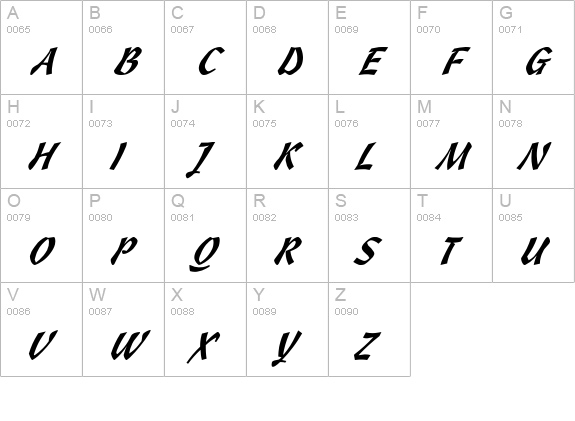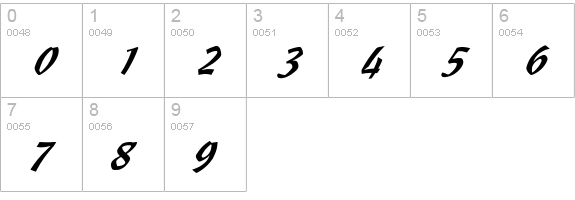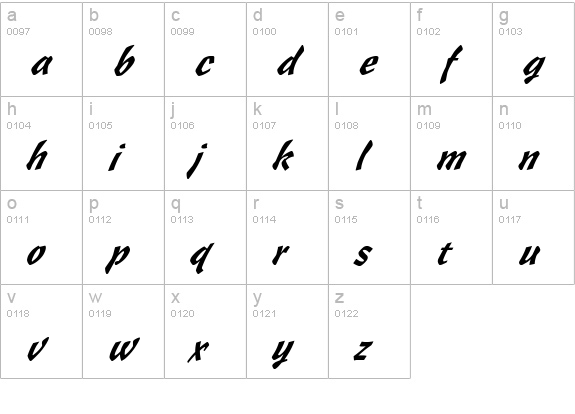
Wizzard Italic is a distinctive, italic variant in the Wizzard typeface family \xE2\x80\x94 well suited to design and typography projects.
Introducing Wizzard Italic, a font that effortlessly combines elegance and playfulness. With its sleek and slanted design, Wizzard Italic is perfect for adding a touch of sophistication to any creative project. Whether you're designing a logo, crafting a unique website, or creating eye-catching marketing materials, this font is sure to make a lasting impression. What sets Wizzard Italic apart is not only its captivating aesthetics but also its accessibility. This incredible font is freely available to download at FontsMarket.com, making it easily accessible to designers, artists, and enthusiasts alike. No need to worry about breaking the bank or compromising on quality – Wizzard Italic offers both style and affordability. Once you start using Wizzard Italic, you'll be captivated by its versatility. Its graceful curves and dynamic angles allow it to seamlessly adapt to various design needs, giving your projects a distinct and original look. From headlines to body text, this font's legibility remains uncompromised, ensuring clear communication and visual impact. Wizzard Italic is the perfect choice for those who desire a font that effortlessly blends sophistication and creativity. Its unique style and easy availability make it a must-have for anyone looking to elevate their designs. So why wait? Download Wizzard Italic for free at FontsMarket.com and let your creativity take flight.